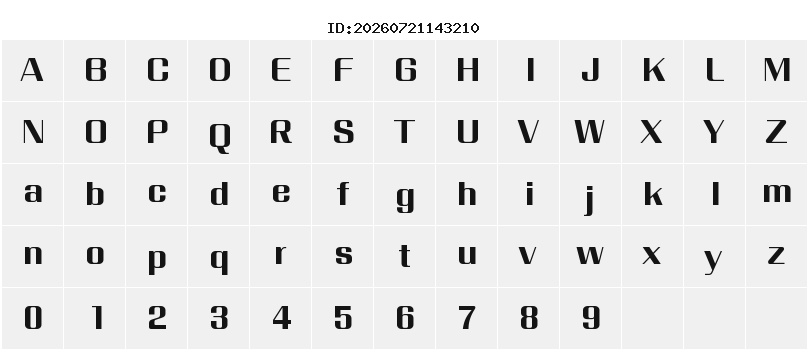
方正清纯体简体 ExtraBold Preview
• Font Name: 方正清纯体简体 ExtraBold
• Font ID: Founder:FZQingChunTiS_ExtraBold
• Full Font Name: FZQingChunTiS-GB_ExtraBold
About 方正清纯体简体 ExtraBold.ttf
方正清纯体简体 ExtraBold.ttf is a modern, elegant sans-serif font designed for ultimate readability and visual harmony. Perfect for branding, headlines, web design, and print materials.